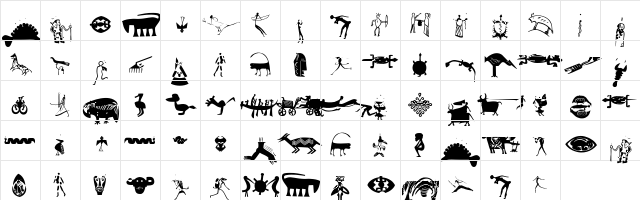
Ethno Medium
| Foundry | Copr. m. klein, ffm |
Ethno is a composed and adaptable typeface that performs quietly and consistently across a wide range of design contexts.